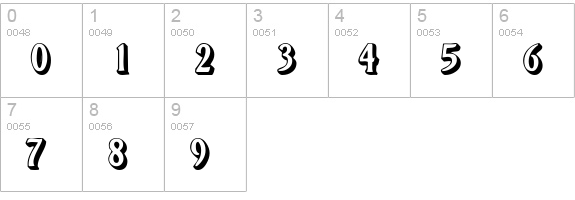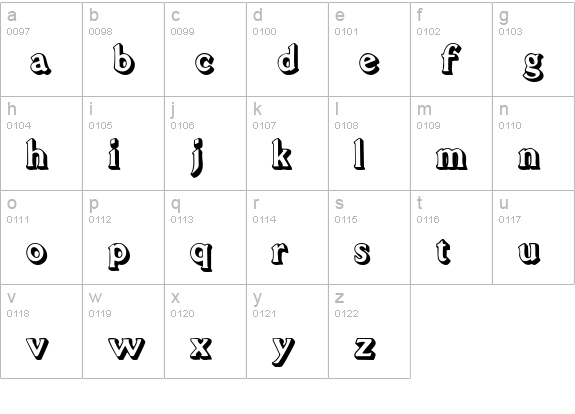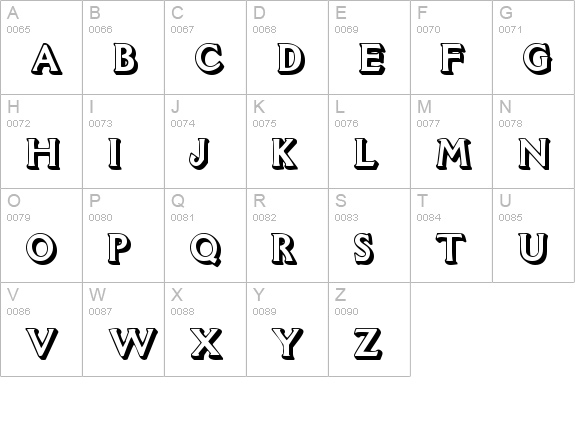
OetjenShadowDisplay Font Details
OetjenShadowDisplay is a stylish and versatile font that adds a touch of elegance to any design project. This unique typeface features intricate shadow details that create a captivating visual effect. Perfect for headers, logos, invitations, and more, OetjenShadowDisplay is sure to make a statement. Best of all, this font is completely free to use! You can easily download it at FontsMarket.com and start incorporating its eye-catching style into your designs today. Don't miss out on the opportunity to enhance your projects with the exquisite OetjenShadowDisplay font.